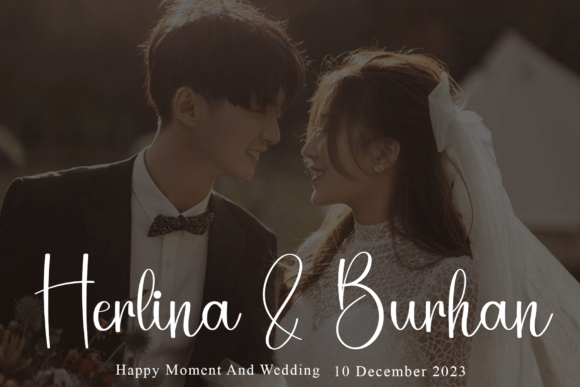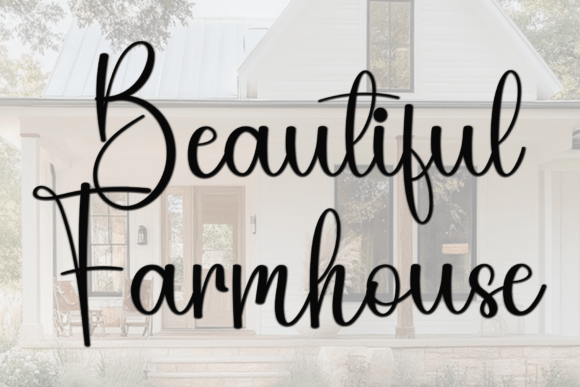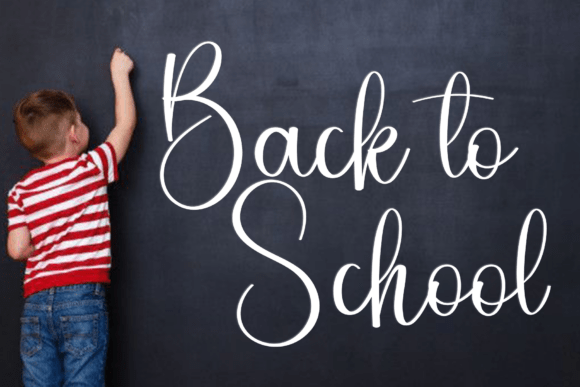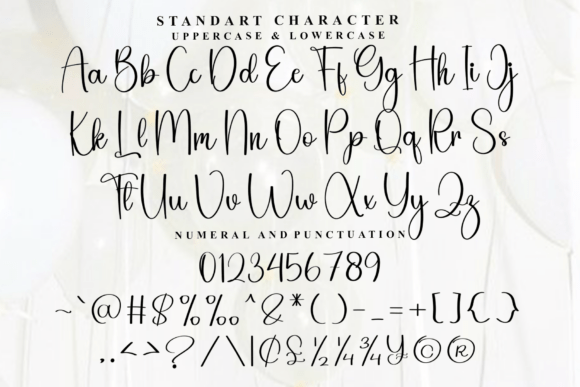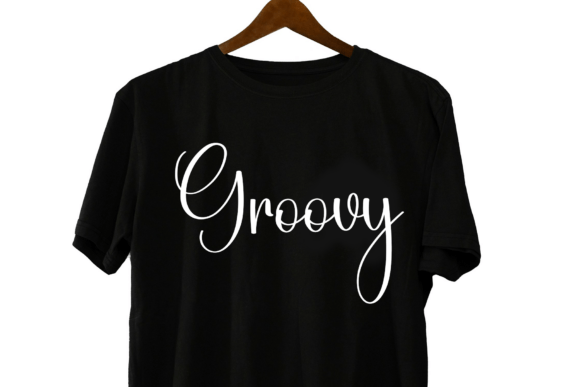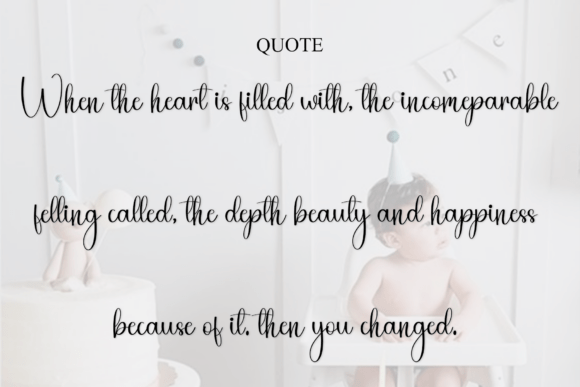
Unwrapping the Magic of Babyday Font
As I sat at my desk, surrounded by twinkling lights and the faint scent of pine, I knew exactly what I needed to get into the holiday spirit: the perfect font. And that’s when I stumbled upon the enchanting Babyday Font. Its whimsical flair and decorative elements immediately captured my heart, and I knew I had to share it with fellow designers.
Babyday Font is a festive and merry typeface designed specifically for the holiday season. Whether you’re creating greeting cards, gift tags, or holiday-themed projects, this font brings a touch of enchantment to your designs. Its PUA encoding allows for easy access to all the amazing glyphs and ligatures, making it a valuable tool for designers looking to add a personal touch to their work.
With Babyday Font, your typography can shine with the magic of the holiday season. So why not give it a try and let the cheerfulness of this font bring your designs to life?
- Unique Characteristics: The font features a unique, hand-drawn design with a playful and whimsical feel, making it ideal for use in children’s products, nursery decor, and other applications where a fun and creative vibe is desired.
Design Review: Babyday Font
Overall, I found the Babyday Font to be a playful and charming script font. Here are some things that work well: ✨
- It’s perfect for adding a touch of whimsy and fun to children’s products, party invitations, or any design that needs a youthful vibe.
- The font is highly legible, even at smaller sizes, making it suitable for body text or headings.
- The ligatures and swashes add a nice, hand-drawn feel that’s reminiscent of traditional calligraphy.
- The font may not be as versatile as other script fonts, as it’s specifically designed for a baby or children’s theme.
- The font may not be suitable for formal or professional designs, as it’s a bit too playful and casual.
- Some users may find the font a bit too ornate or fussy, especially when used in large blocks of text.
Overall, I think the Babyday Font is a great choice for designers who are looking for a fun and playful script font. However, it may not be the best fit for every project or design style.
The Babyday Font is ideal for:
- Baby-related projects, such as nursery decor or baby announcements.
- Children’s book illustrations or design.
- Wedding invitations or decorations with a playful touch.
Remember to experiment with different font sizes and colors to get the most out of the Babyday Font.